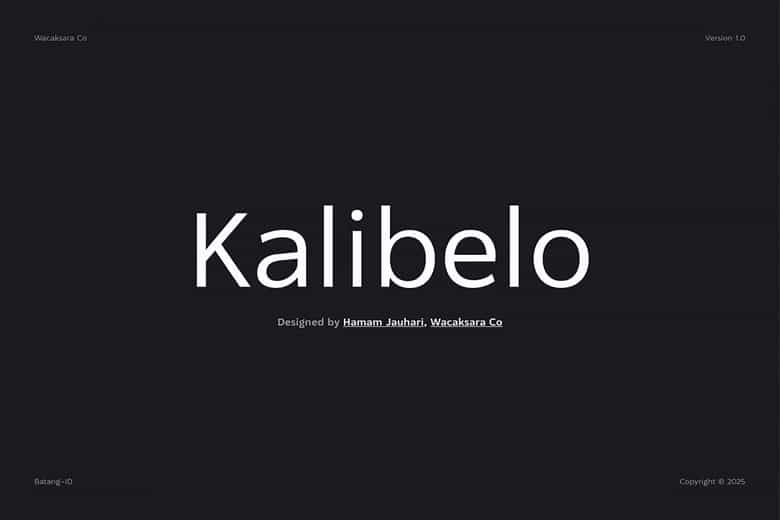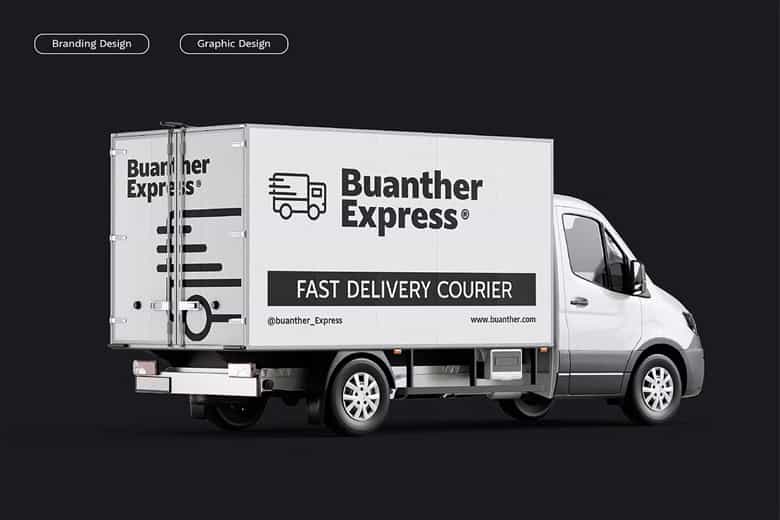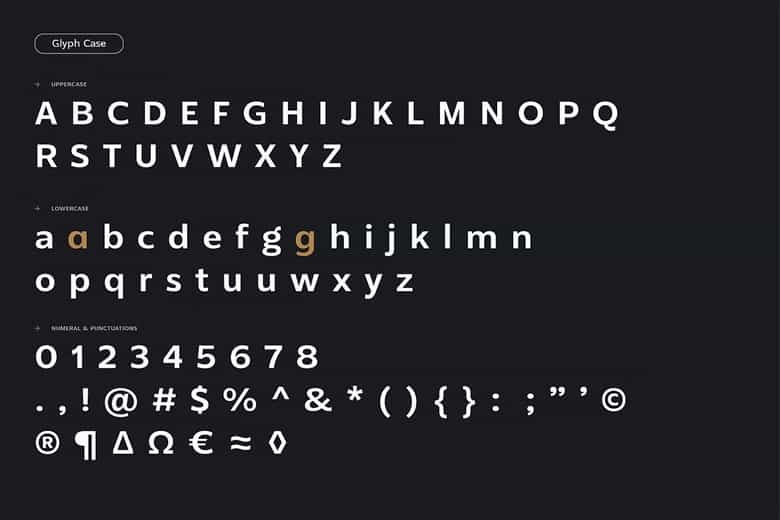
Kalibelo is new sans serif font that has been designed with nine styles ranging from Thin to Black. Because of its simplicity and good measurement, it can go with different designs to be adapted to websites, branding, advertising, prints, and editing purposes.